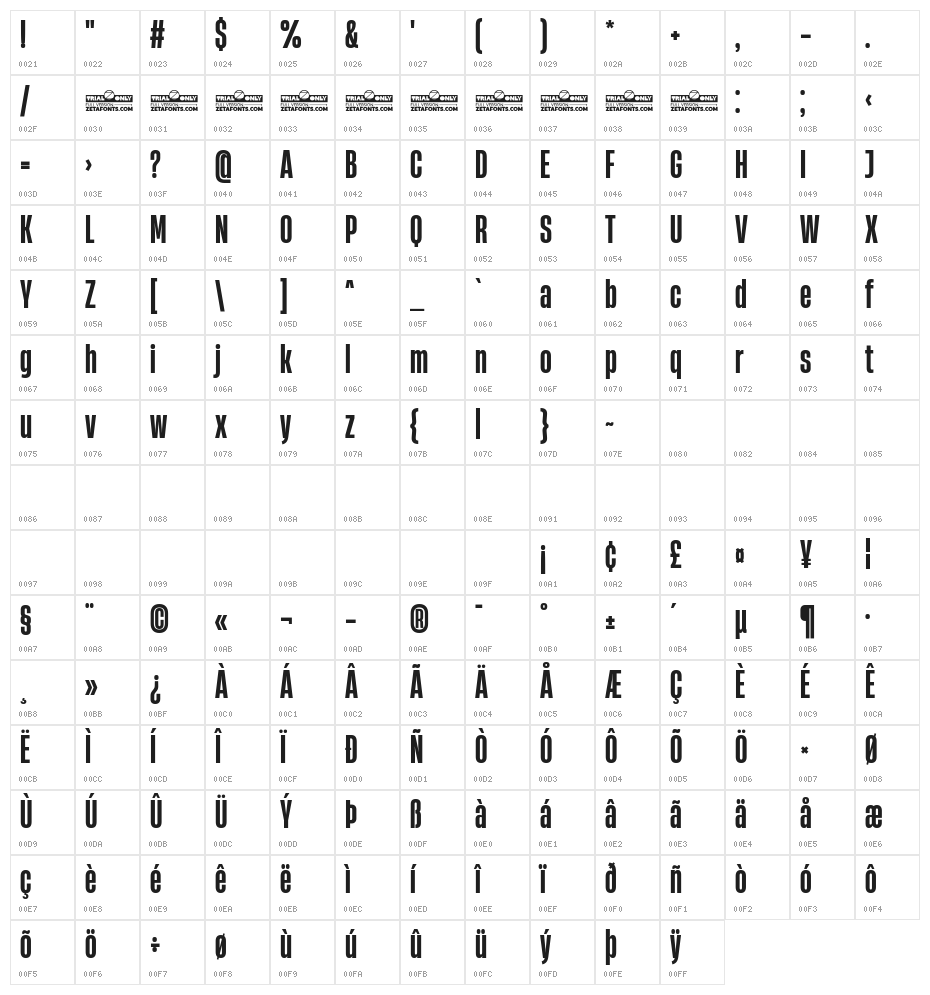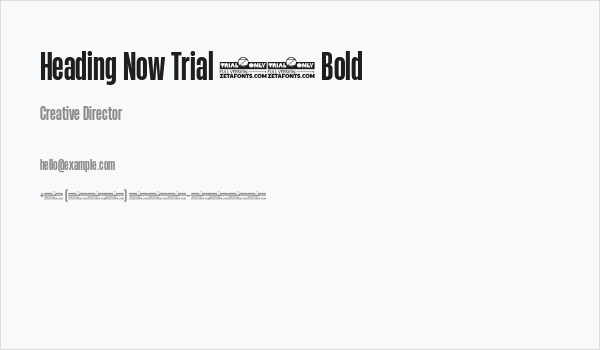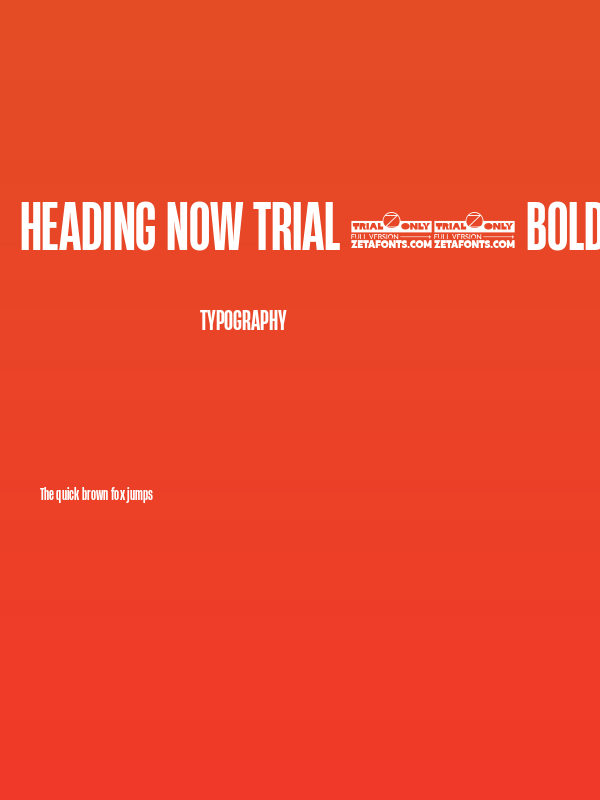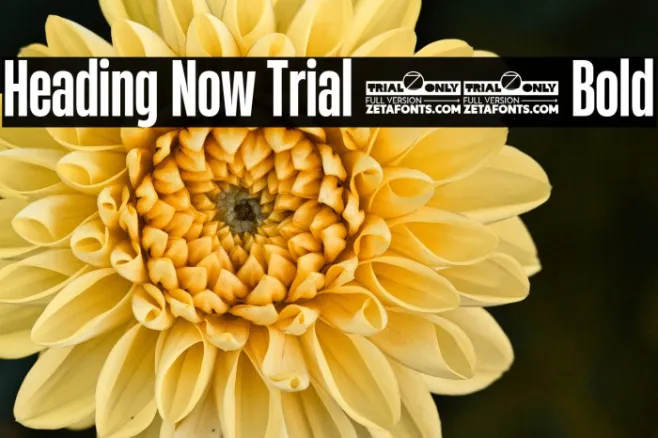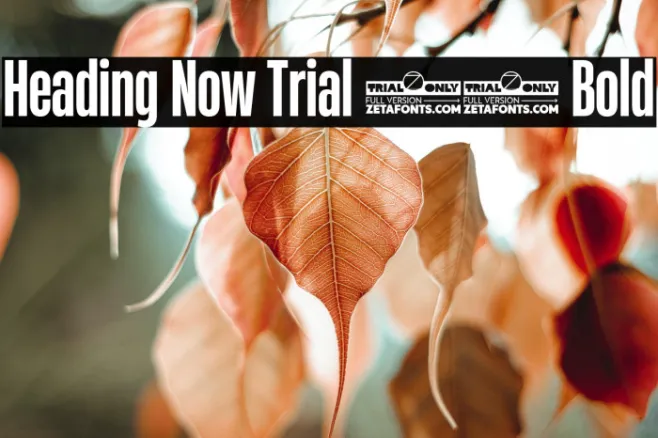
Heading Now Trial 36 Bold Font
Heading Now Trial 36 Bold Description
This font features a bold and impactful design, characterized by its strong vertical lines and consistent stroke width. The uppercase letters are tall and commanding, while the lowercase letters maintain a similar width, ensuring uniformity across text. The numerals and special characters are crafted with the same boldness, making them stand out prominently. The overall appearance is modern and clean, suitable for making statements in headlines or titles. The font's design is straightforward, with no additional embellishments, emphasizing clarity and readability.
| Proposed Projects | Ideal for headlines, posters, branding, and any project requiring a strong visual impact. |